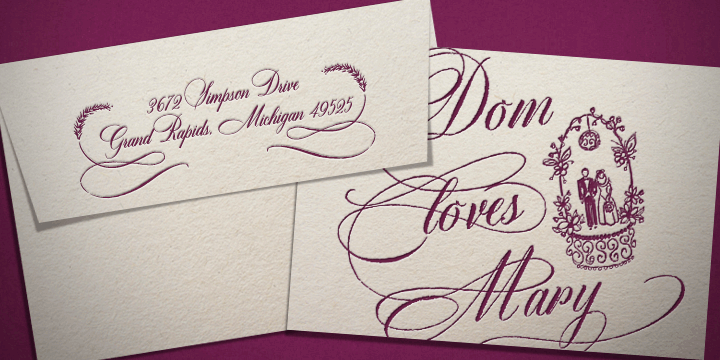
DomLovesMary
DomLovesMary font family has been integrated with all you require to develop a unique, custom stationery product. The font has been named in memory of Dominic and Mary Sementelli, Debi’s in-laws. She was so attracted by their dynamic and pleasing personality that she decided to create a hand-lettered font with them in mind. Since the … Read more